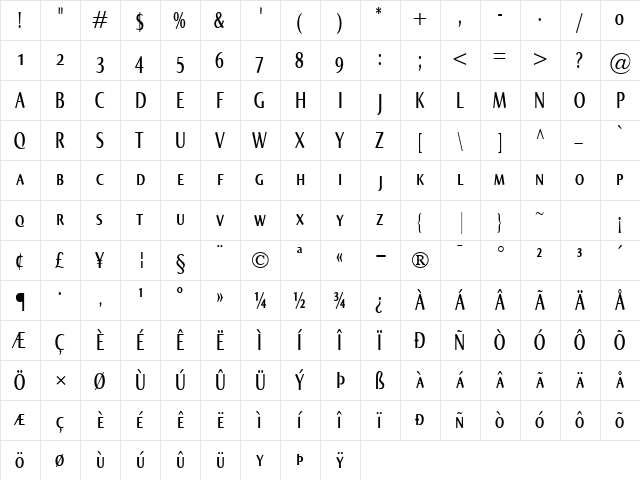
Norma Compr SmallCaps Regular
Design Context for Norma Compr SmallCaps Typeface
Norma Compr SmallCaps is a composed and adaptable typeface that performs quietly and consistently across a wide range of design contexts.